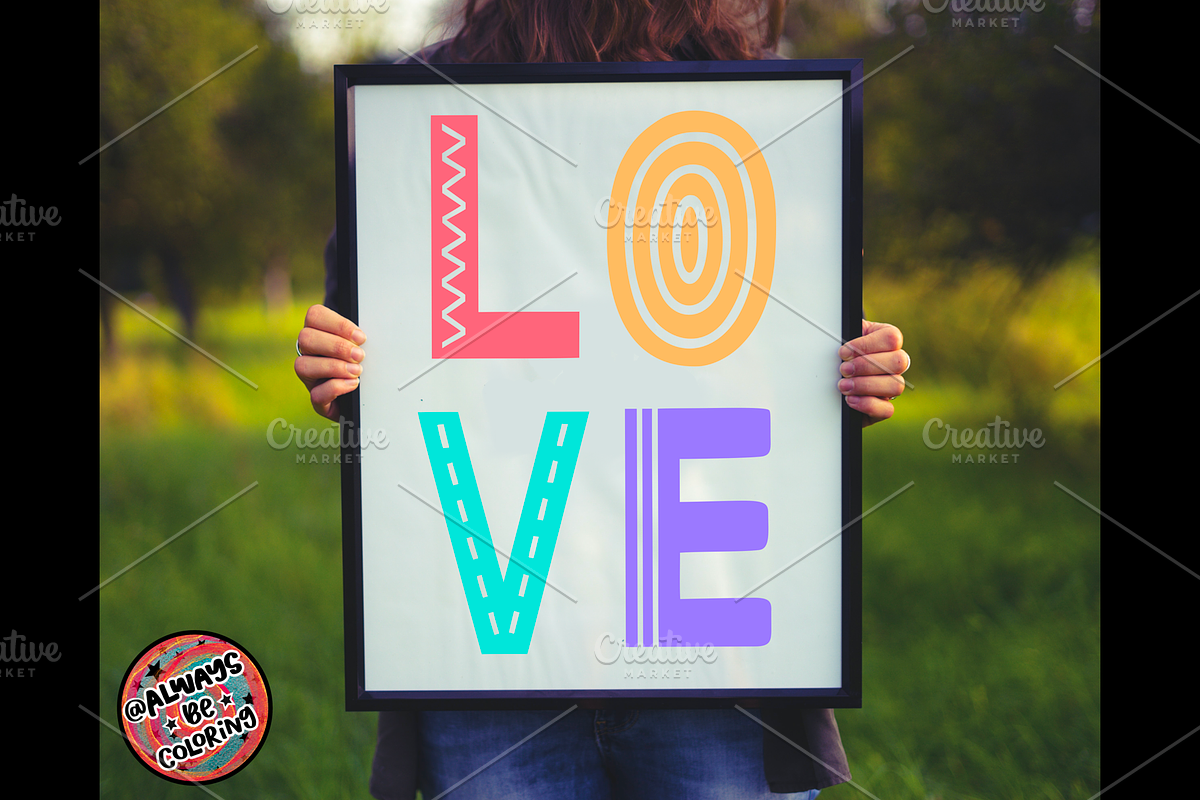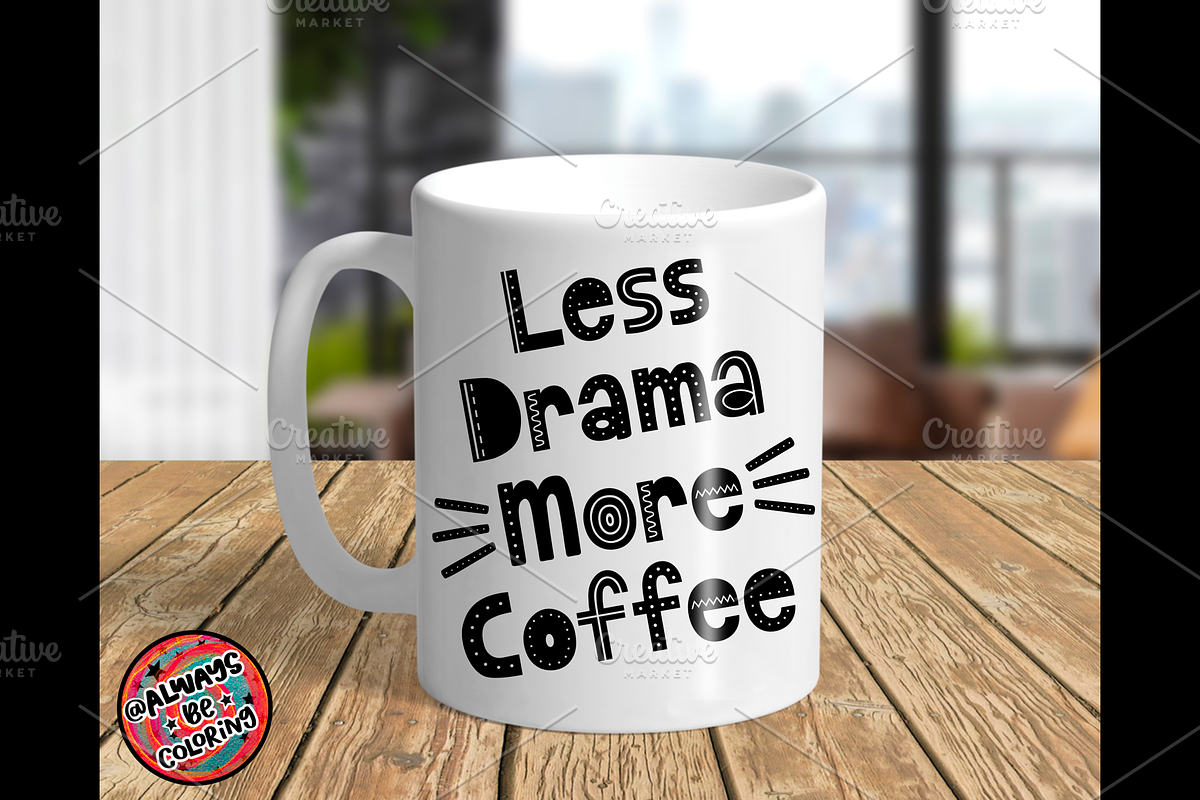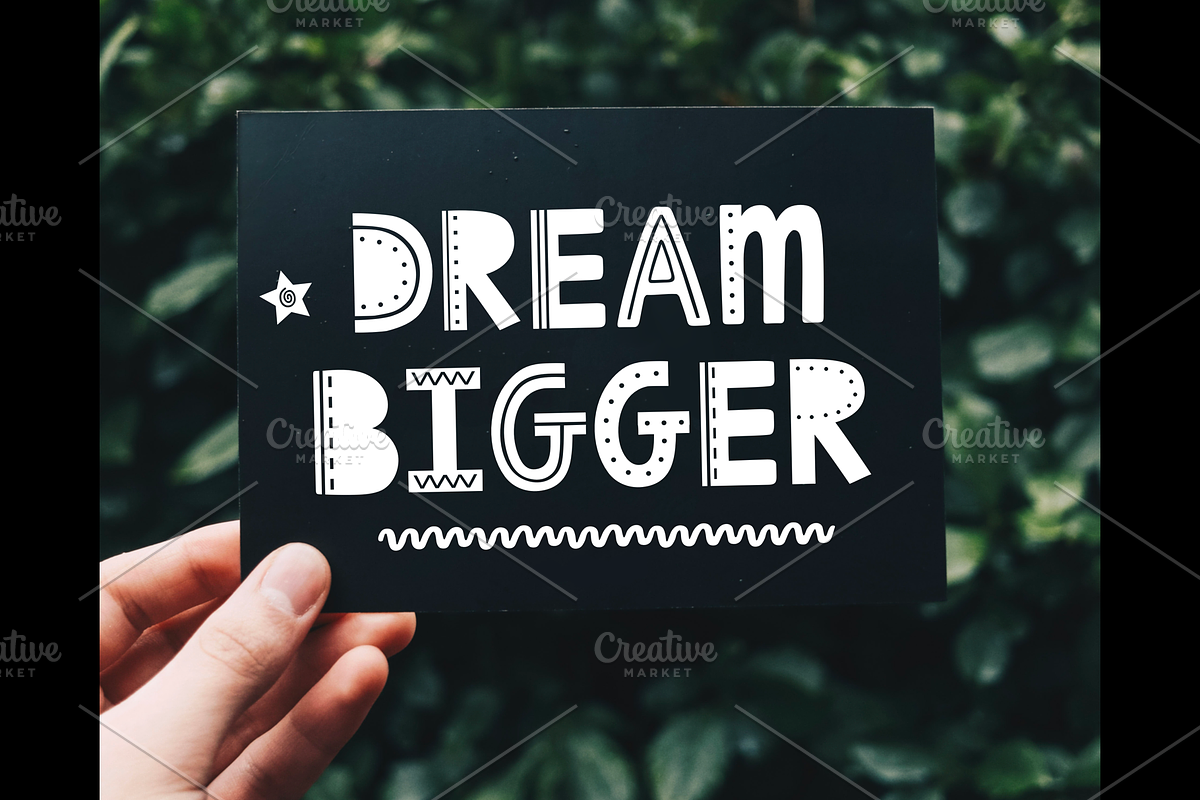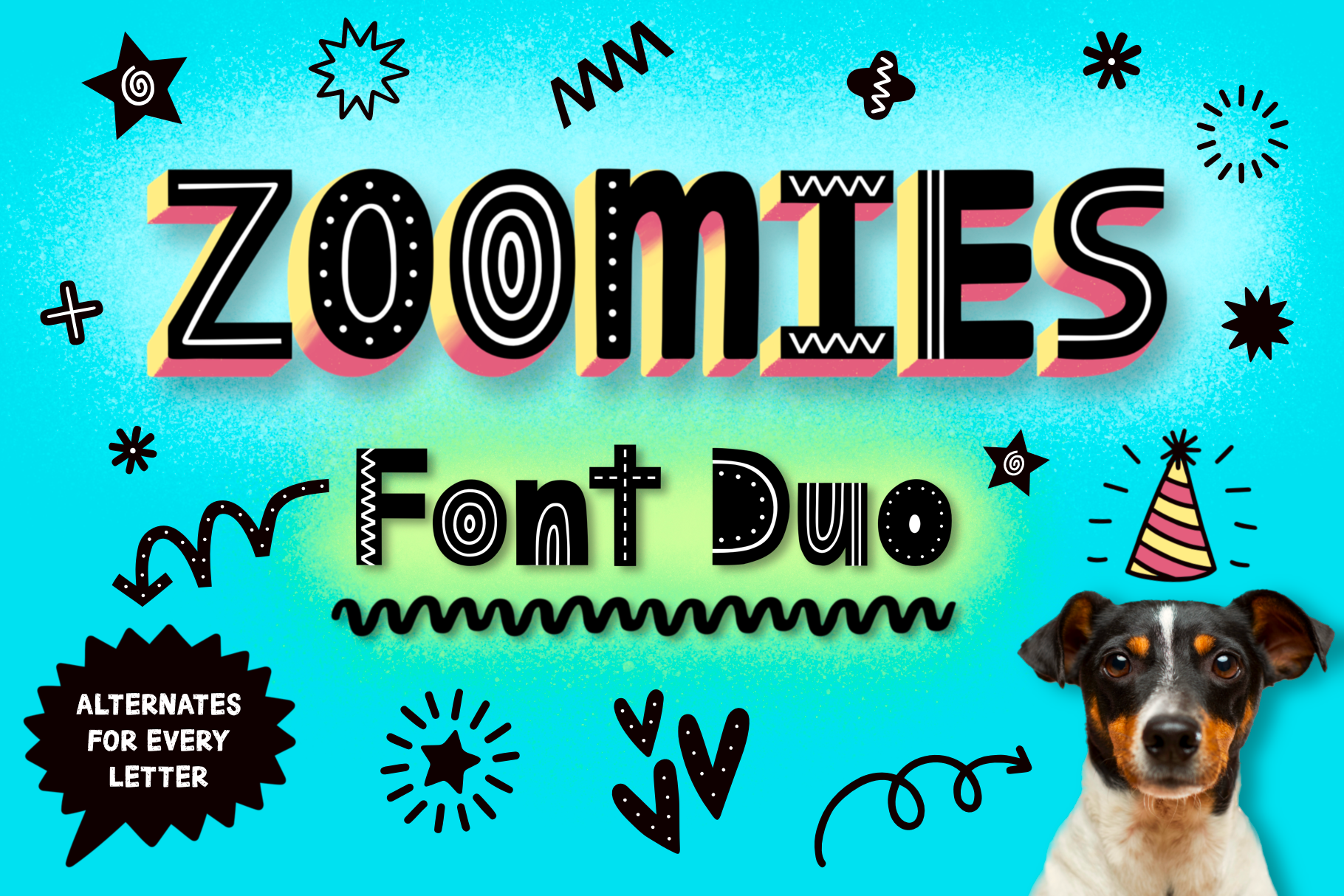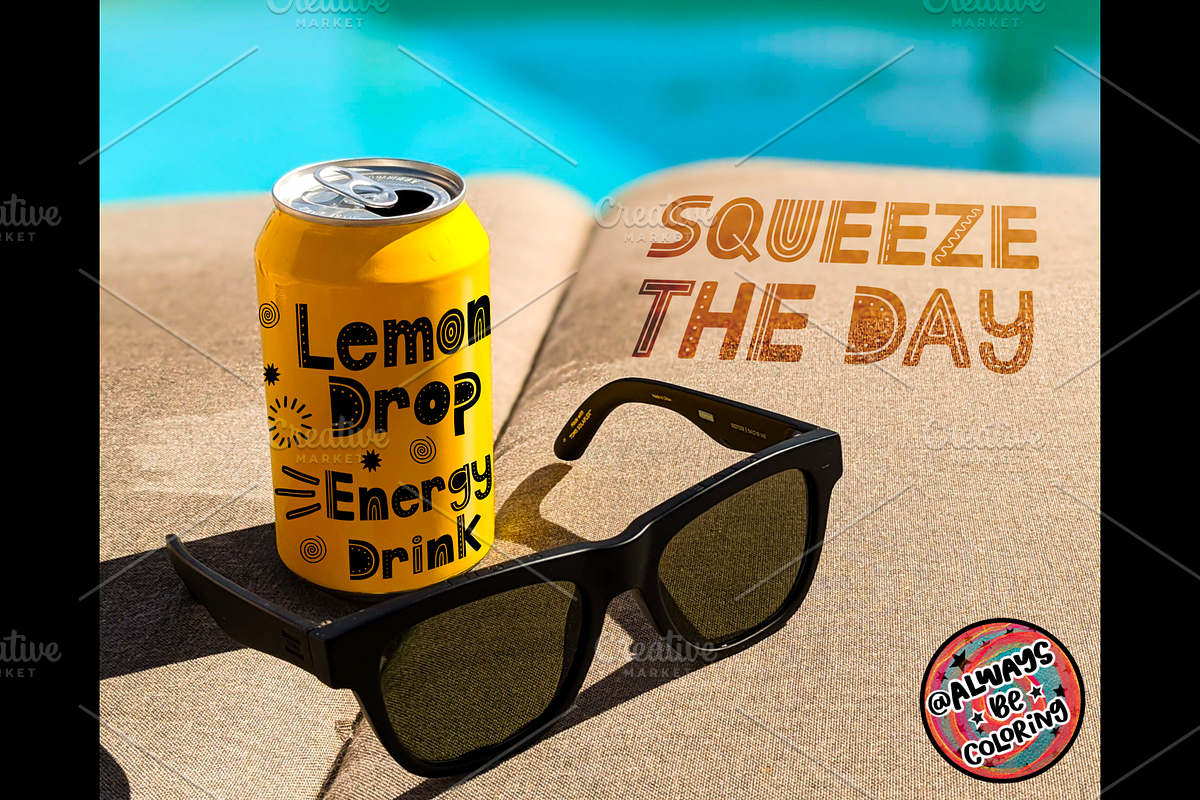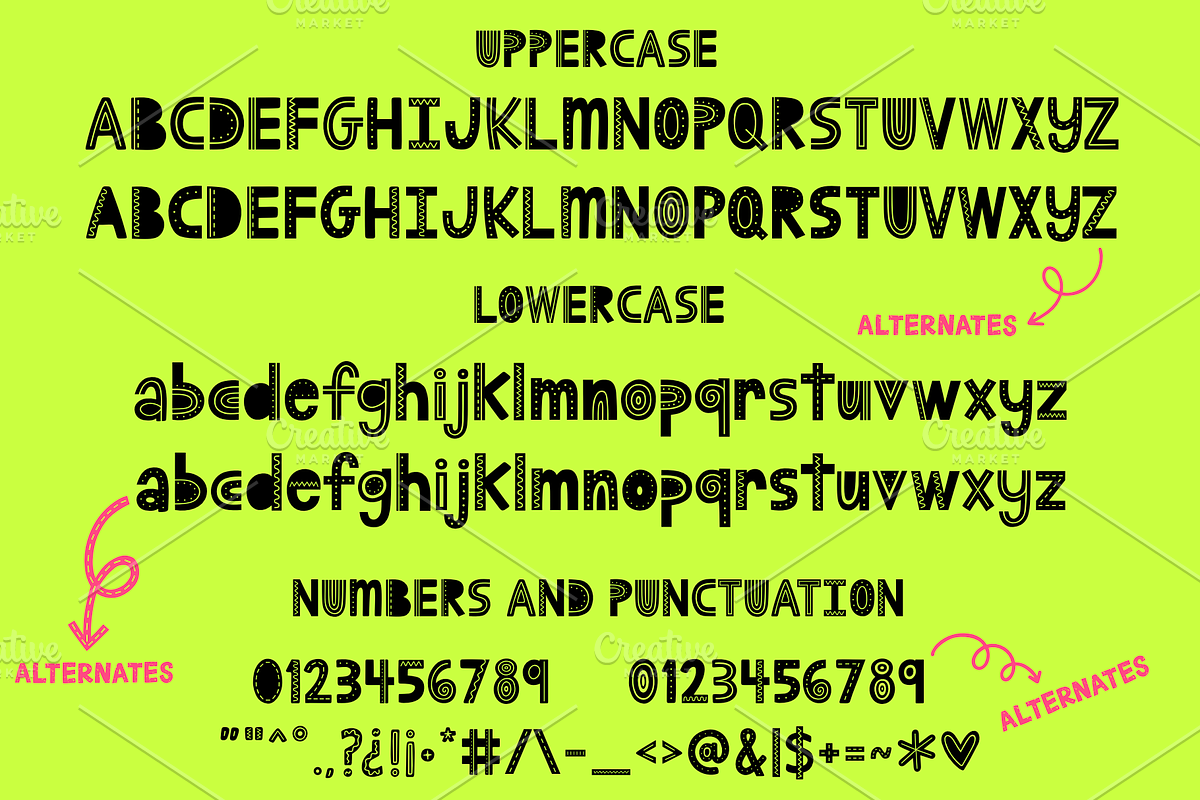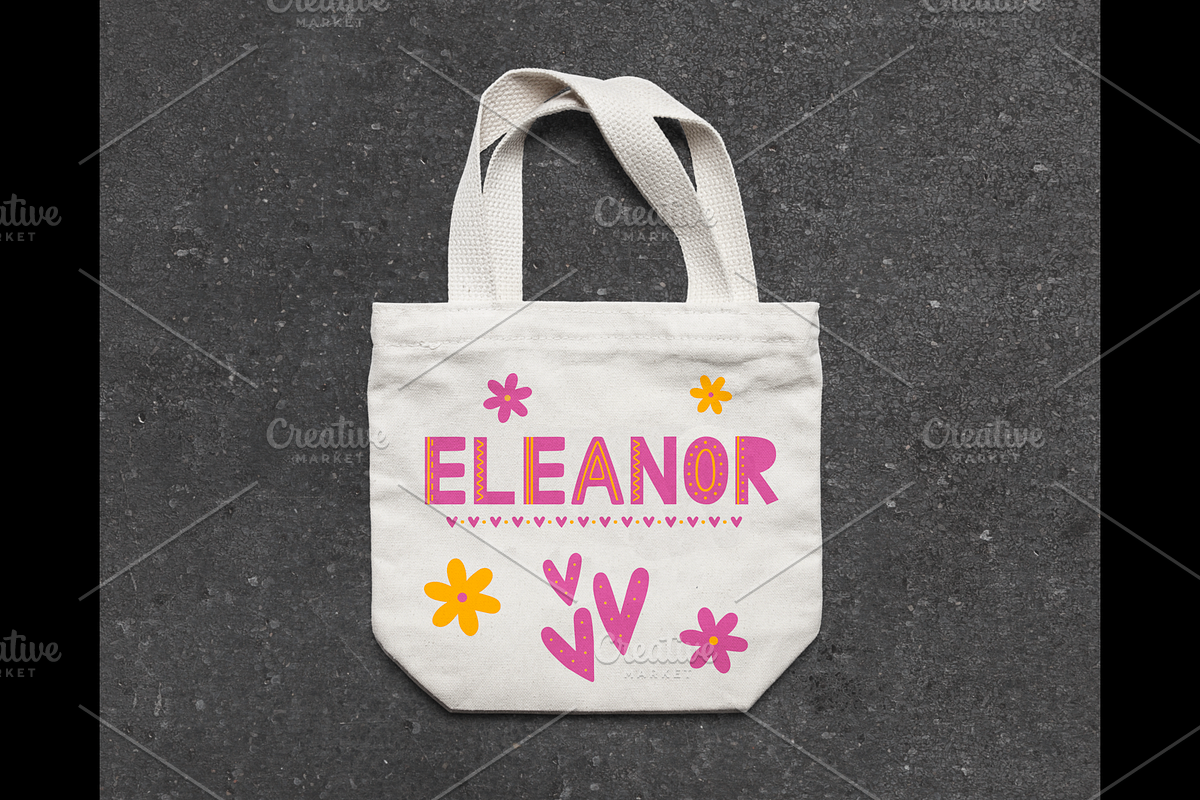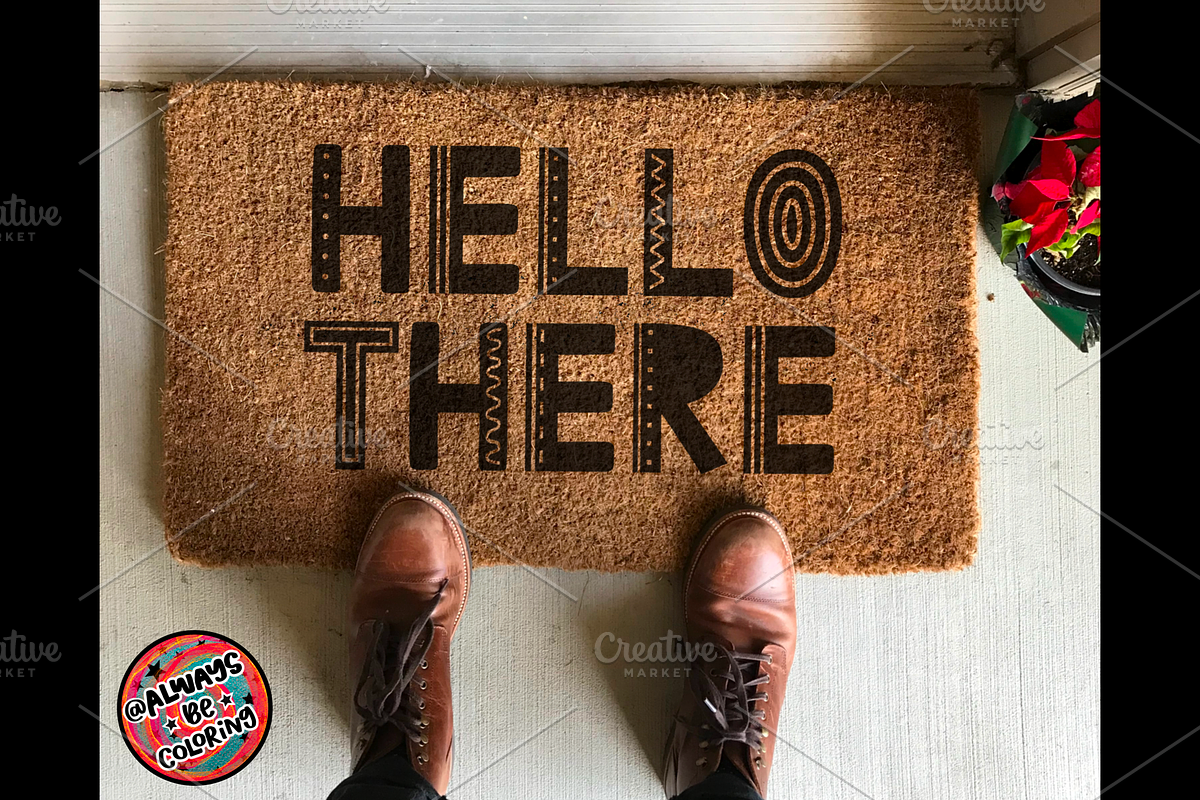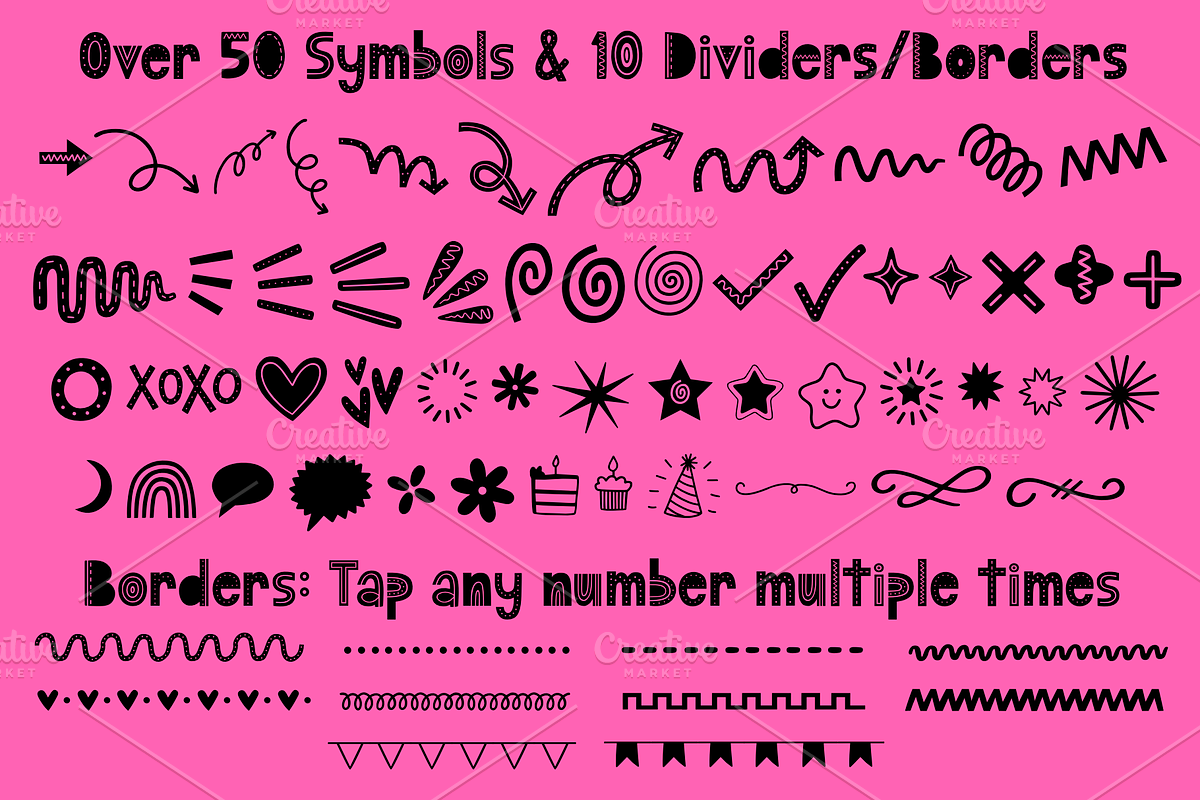
Zoomies Font Duo With Doodles
Introducing the Zoomies Font Duo! A handwritten decorative sans serif font, plus a Symbols font with cute doodles and lettering elements! There are two versions of each: uppercase and lowercase alphabets and numbers! You can mix and match to make unique words every time!
This font will look great on cards, invitations, t-shirts, bags, stickers, and posters! Make cute colorful wall art with your child’s name! Use it to make eye catching ads or animations. So many fun uses!